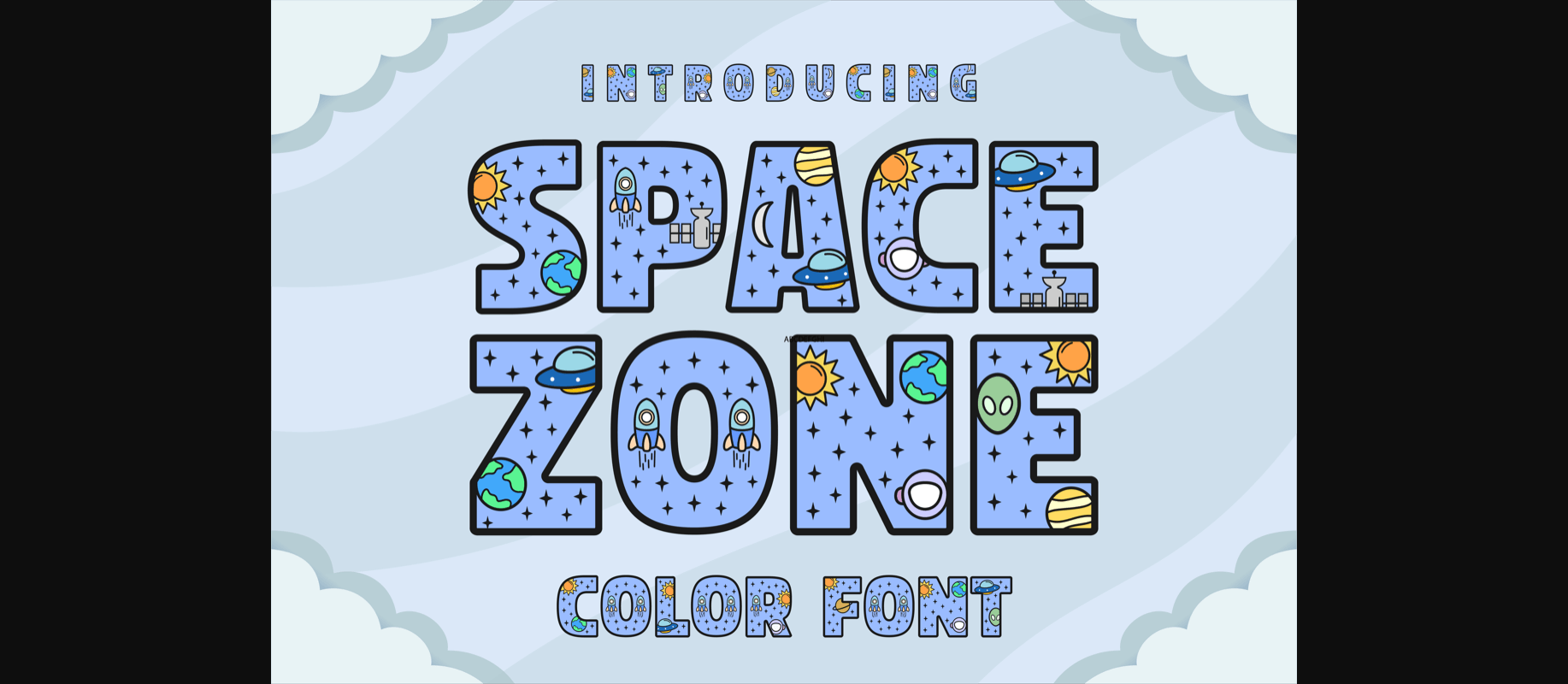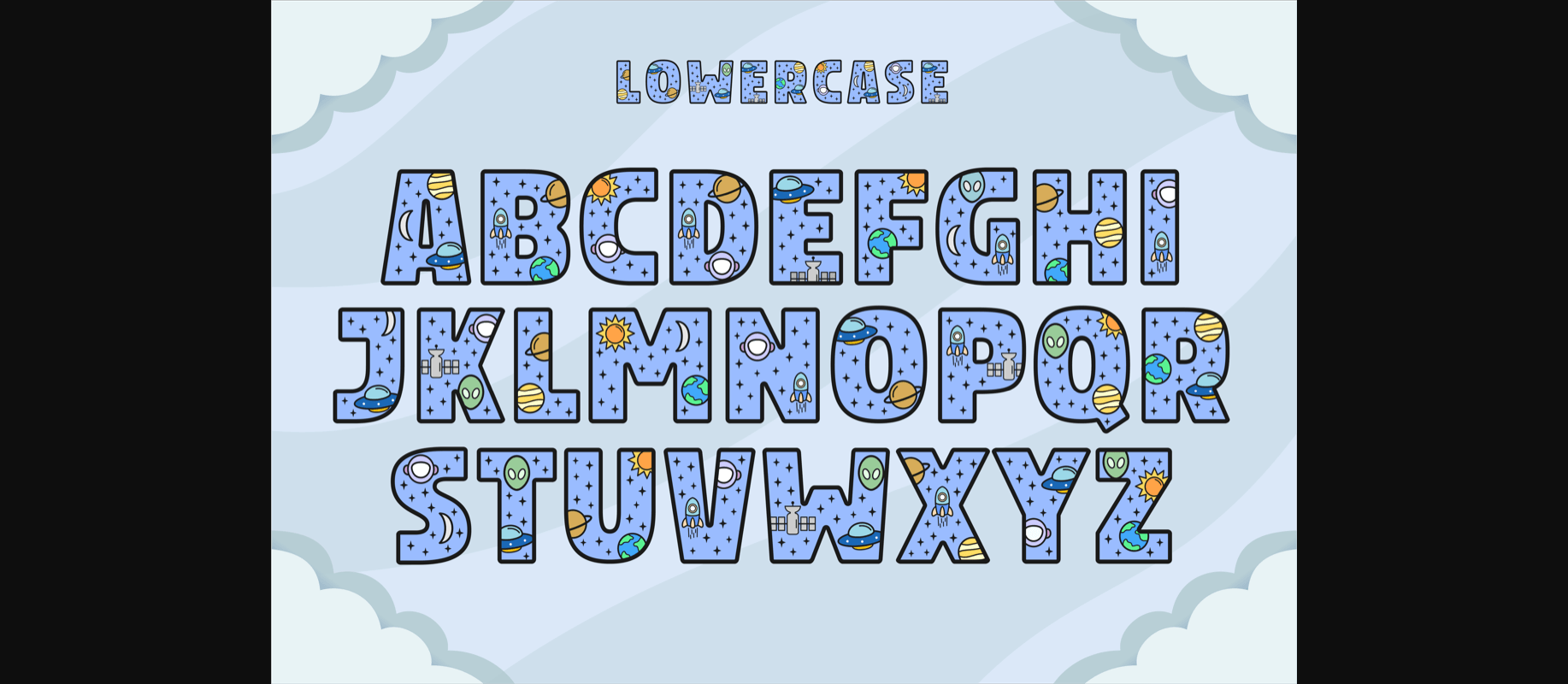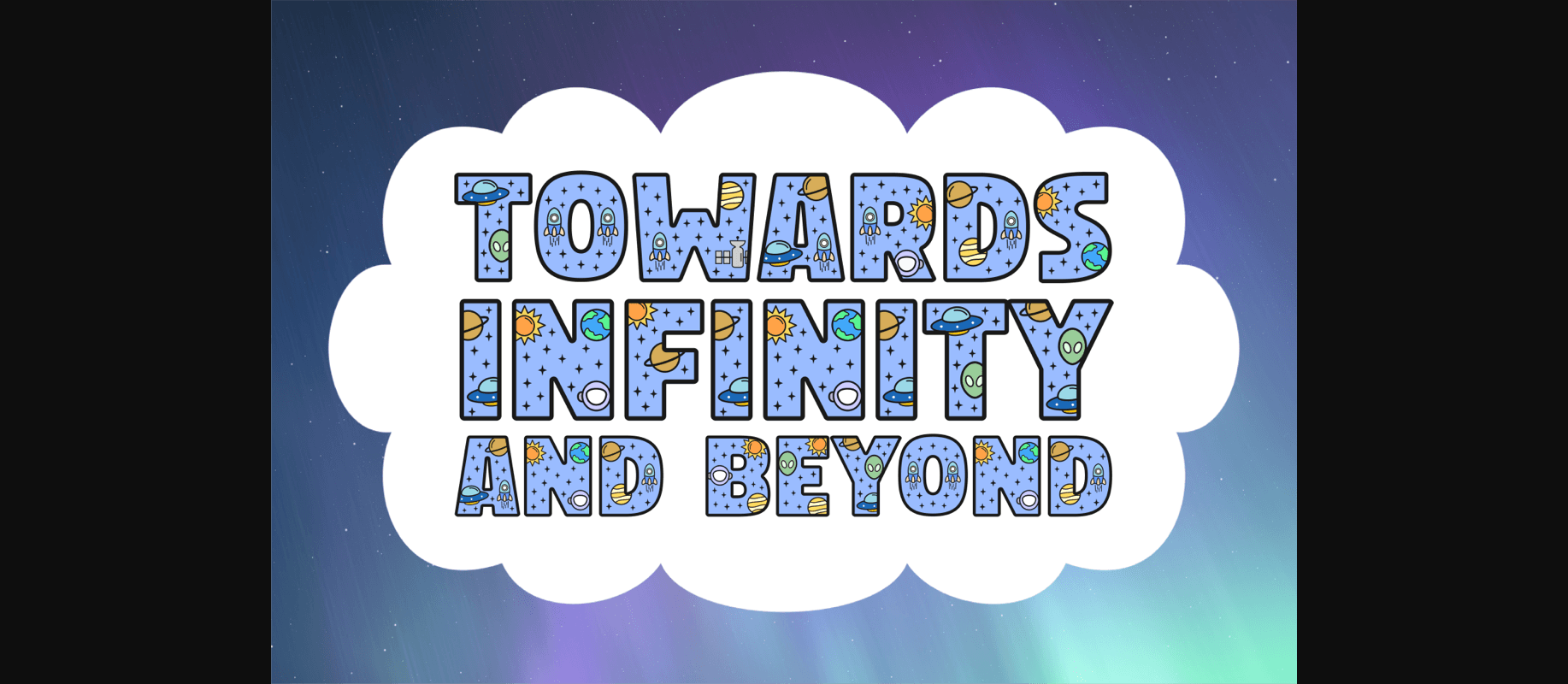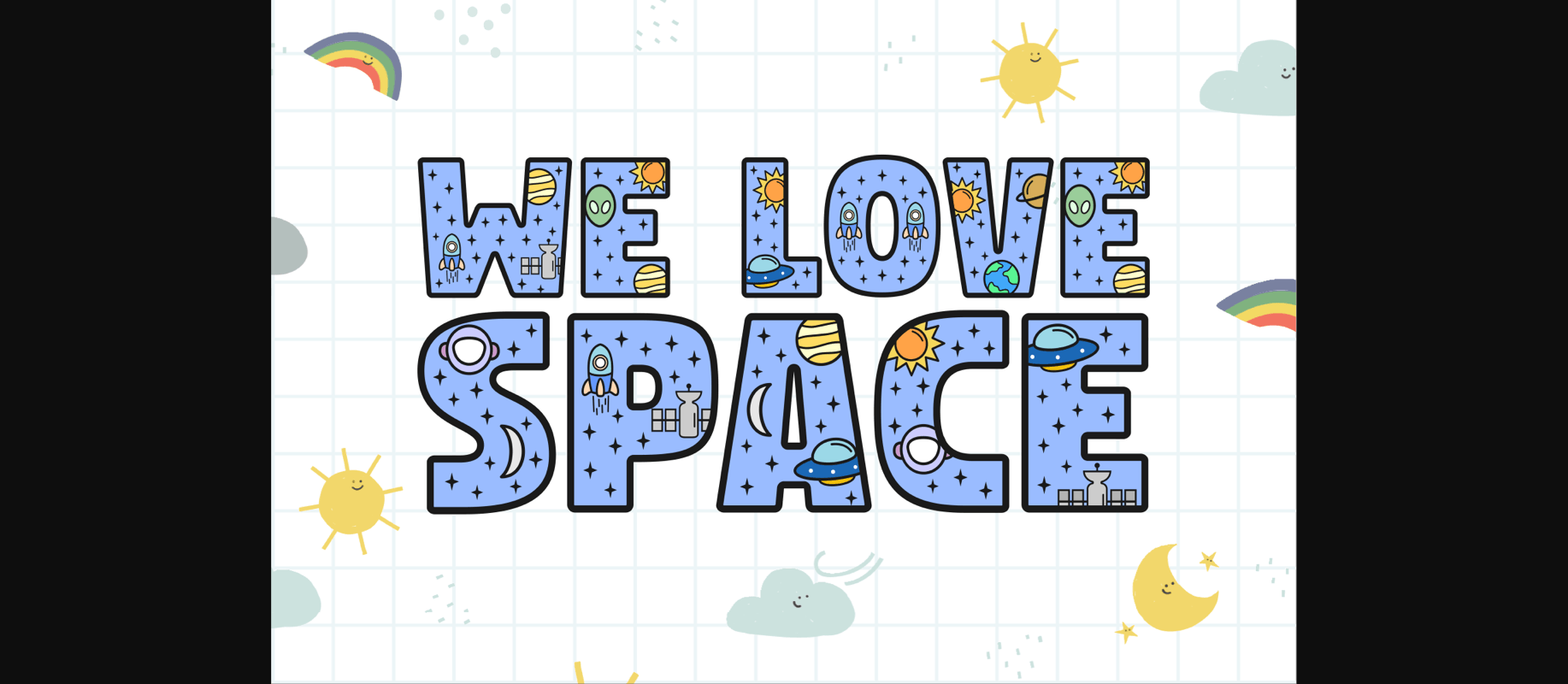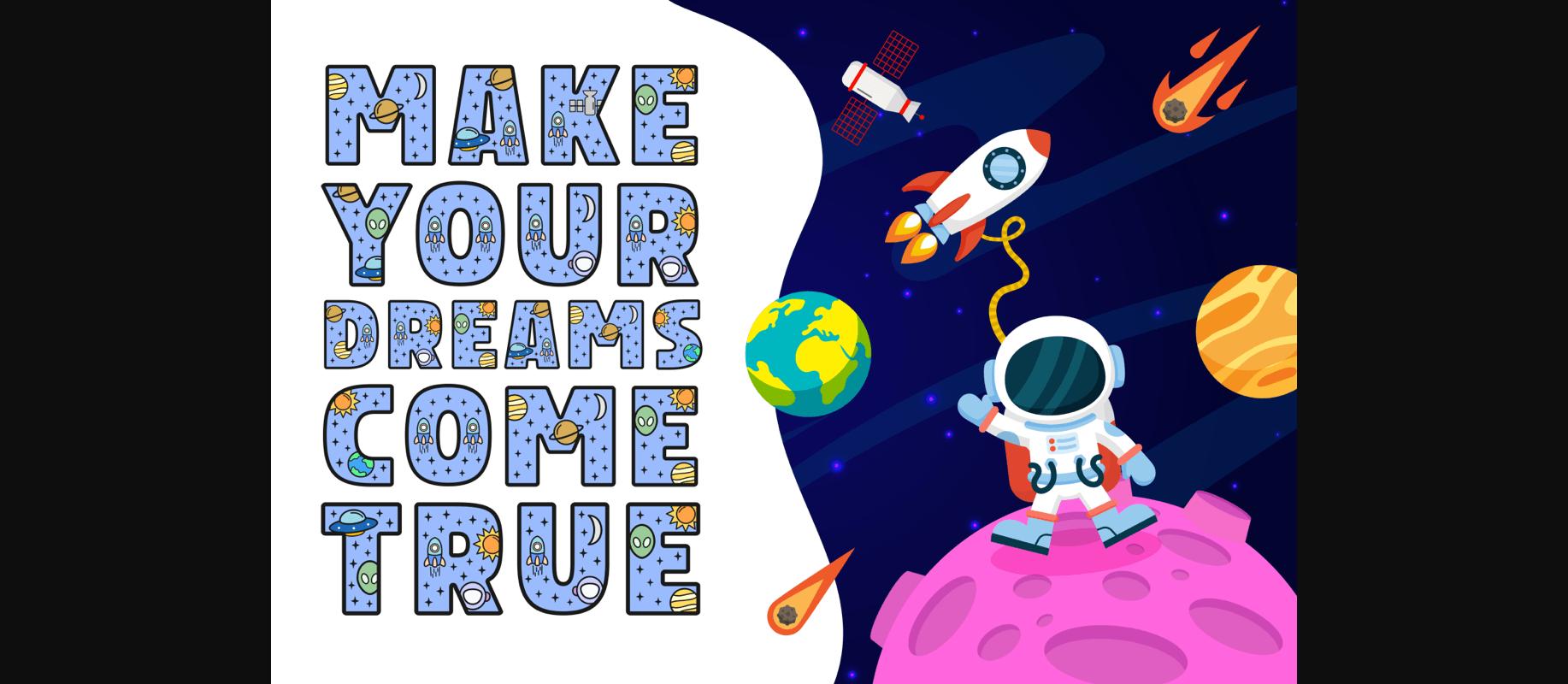
Space Zone Font
About Space Zone Font
Space Zone is a fun and colourful display font with space-themed flair on each letter. Get inspired by its unique coolness!